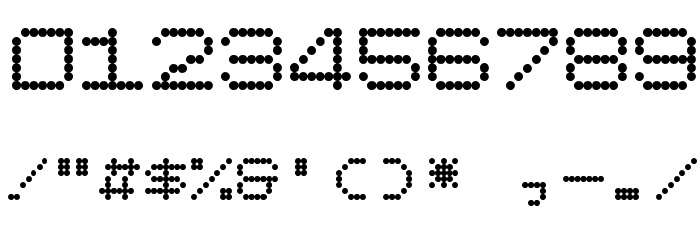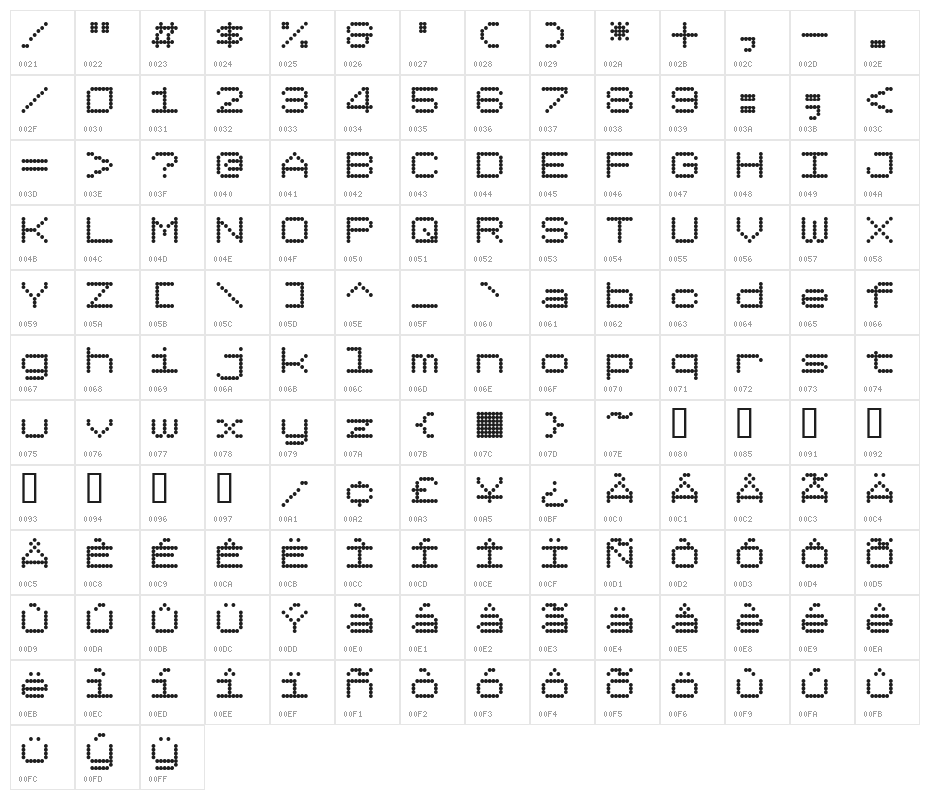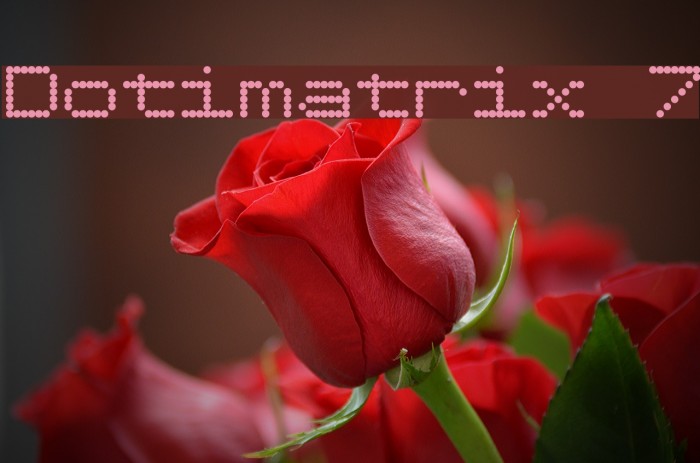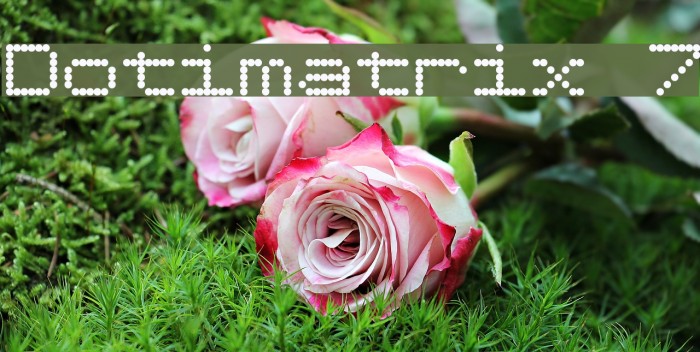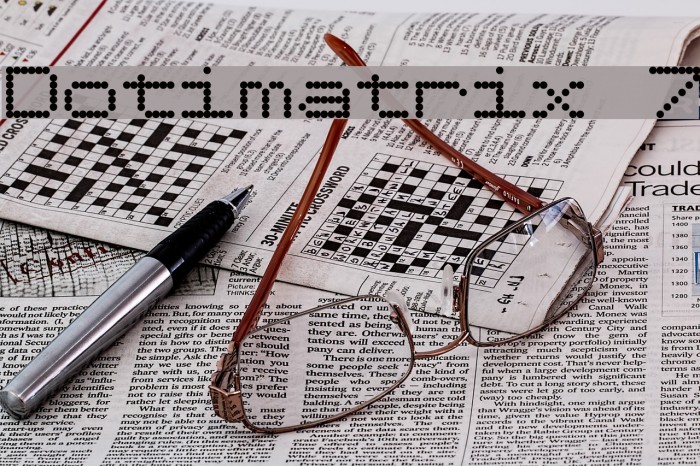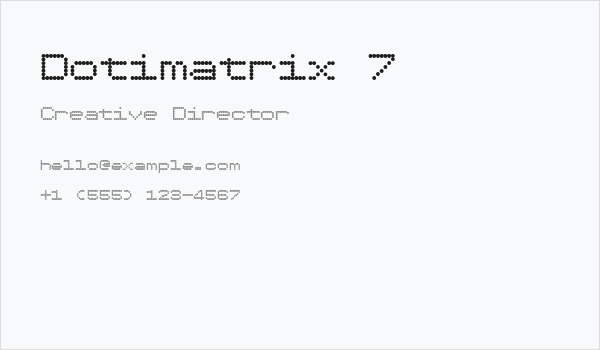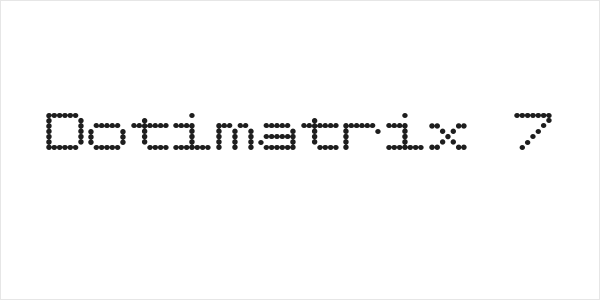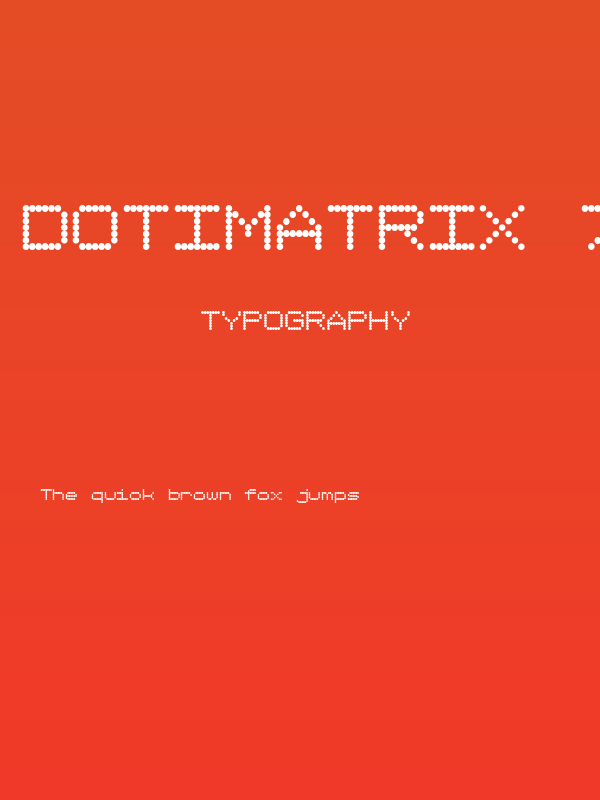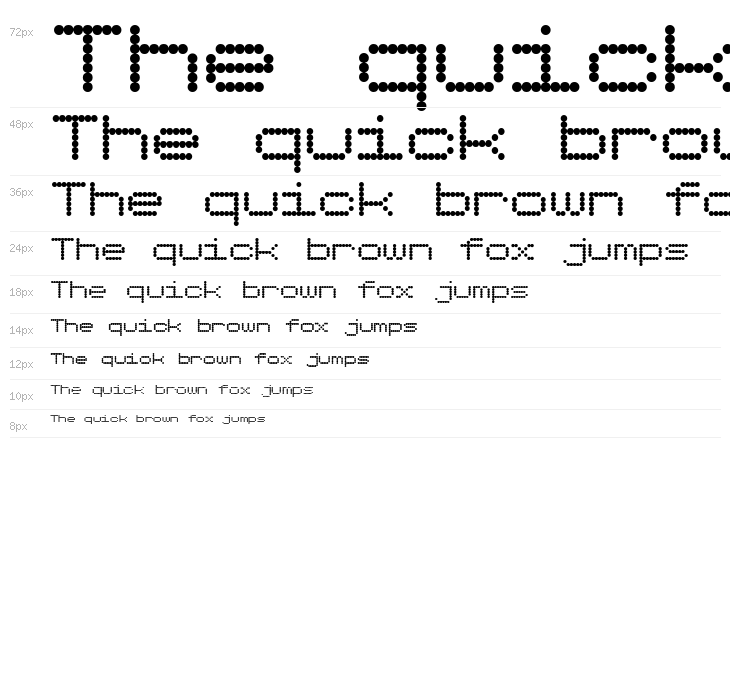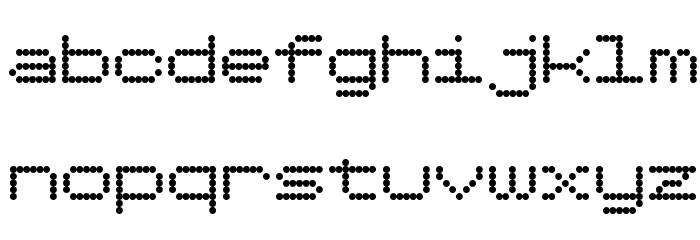
Dotimatrix 7 Font
Dotimatrix 7 Description
This font features a unique dot matrix design, where each character is composed of a series of evenly spaced dots. The style is reminiscent of old digital displays and printers, offering a retro, tech-inspired aesthetic. The uppercase and lowercase letters maintain a consistent height, contributing to a uniform appearance. Numbers and special characters follow the same dot pattern, ensuring cohesion across all elements. The font's playful yet structured design makes it suitable for projects that require a digital or vintage feel.
Overall StyleVintage
Use CaseLogos, Posters, Digital Art
Proposed ProjectsIdeal for digital-themed designs, retro video game graphics, tech event posters, and any project needing a vintage digital look.